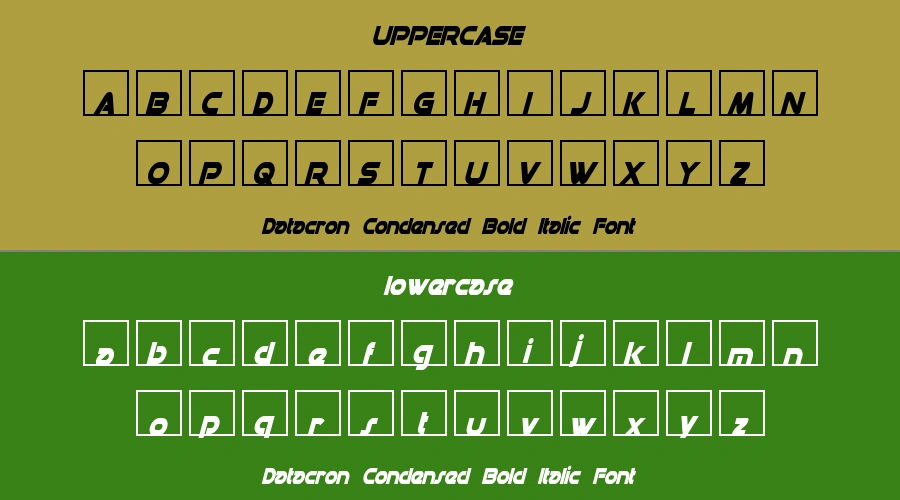
About Datacron Condensed Bold Italic Font
Datacron Condensed Bold Italic Font embodies typographic excellence through its masterful combination of confident strokes and refinement. Created for scientific papers, this typeface delivers exceptional versatility and brand differentiation across all applications. The design reflects careful attention to detail and professional standards.
Advanced capabilities include distinctive contextual swashes and versatile mid-word alternates, giving designers creative control. When used in instruction steps, Datacron Condensed Bold Italic Font exhibits remarkable hinting quality. The harmonious balance between curve radius and brand personality sets this typeface apart.